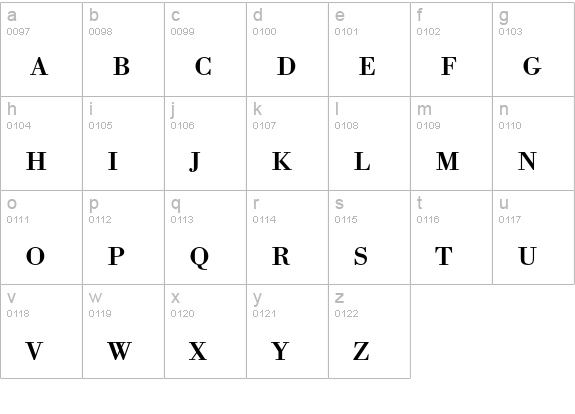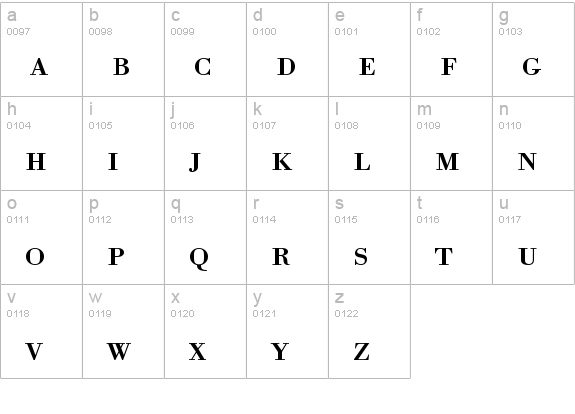
Bodoni BE Regular Expert is the standard, neutral variant in the Bodoni typeface family \xE2\x80\x94 well suited to general body text, paragraphs, and standard typographic work.
Bodoni BE Regular Expert font is a sophisticated and elegant typeface that exudes timeless charm and refined beauty. With its clean lines, precise curves, and graceful serifs, this font is perfect for adding a touch of class to any design project. Whether you're creating a logo, a brochure, or a poster, Bodoni BE Regular Expert font will elevate your work to new heights of sophistication. What's even better is that this exquisite font is available for free download at FontsMarket.com. So, you can bring a touch of elegance to your designs without breaking the bank. Don't miss out on the opportunity to enhance your projects with the classic beauty of Bodoni BE Regular Expert font. Download it today and let your creativity shine!